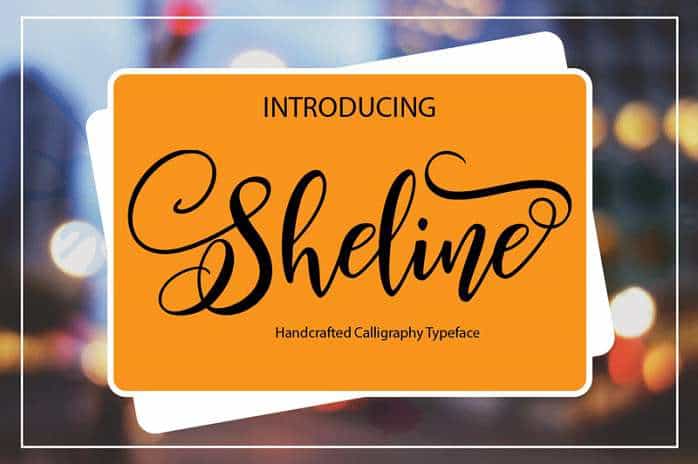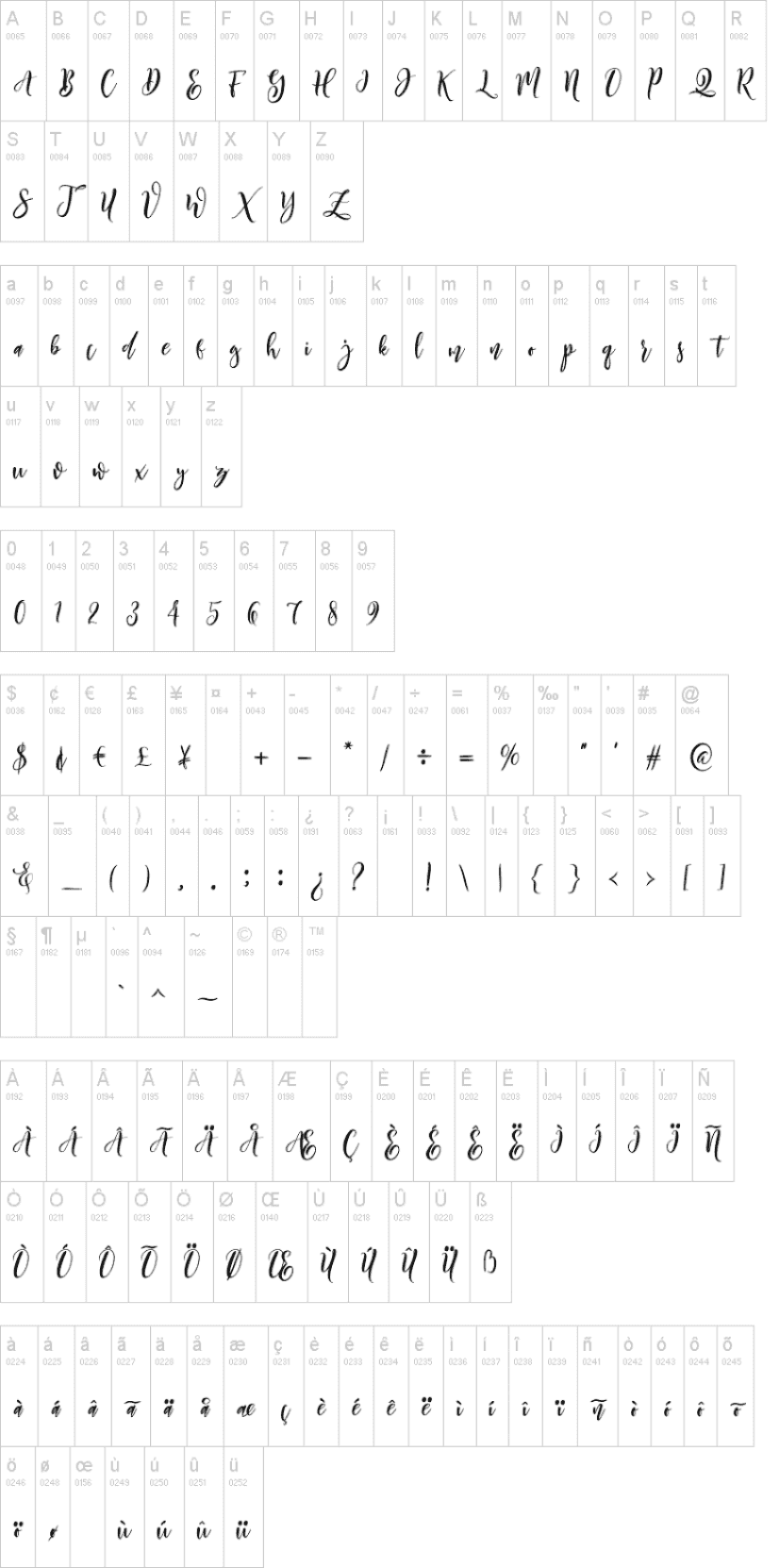
Sheline is a beautiful calligraphy font possessing a satisfactory character set for its users with the work of the designer named Sofian, and this font is Kept under the effect of protection and free for downloading for the personal use. The free version offers all the letters in both cases, and only a few symbols of the type, such as # or $, etc.